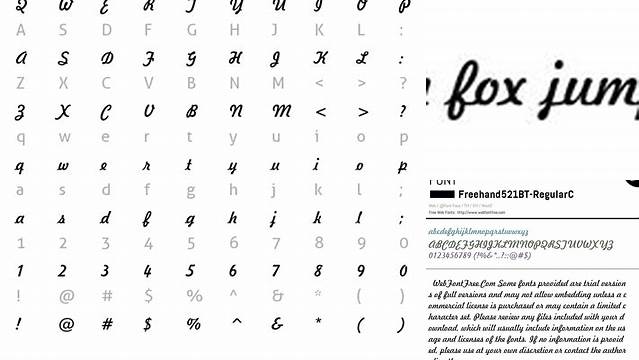
Font Freehand 521 BT Regular: Ultimate Guide
Font Freehand 521 BT Regular: A Comprehensive Guide
Hey there, design enthusiasts! Ever stumbled upon the Font Freehand 521 BT Regular and wondered what all the fuss is about? Well, you're in the right place! This guide is your one-stop shop for everything you need to know about this popular font, from its origins and characteristics to its practical applications and where to find it. We'll dive deep into its history, explore its unique features, and uncover how it can elevate your creative projects. So, buckle up, and let's get started!
The Genesis of Font Freehand 521 BT Regular
Let's rewind a bit, shall we? Font Freehand 521 BT Regular isn't just another font; it's a piece of design history. Born from the era when digital typography was taking its baby steps, this font emerged as a response to the need for fonts that could mimic the human touch. Imagine the days before the smooth, crisp lines of modern digital fonts. Designers craved something that felt more organic, more personal. And that's where Freehand 521 BT Regular stepped in.
This font is a member of the Bitstream family, a name synonymous with pioneering digital fonts. Bitstream, a company that played a pivotal role in shaping the digital font landscape, designed Freehand 521 BT Regular to bring a touch of hand-drawn flair to digital design. It was designed to replicate the look and feel of lettering created with a pen or marker, giving designs a friendly and approachable vibe. Its creation was a response to the growing demand for fonts that could add a personal touch to the increasingly digitized world. It's a font that tells a story of design evolution, reflecting the desire to blend the authenticity of hand-drawn work with the efficiency of digital tools. The goal was simple: create a font that felt less like a machine and more like a human had crafted it. This goal is still resonating with designers today who seek to inject personality and warmth into their work.
Its initial design was a deliberate move away from the rigid, perfect forms typical of many early digital fonts. Freehand 521 BT Regular aimed to capture the slight imperfections and variations inherent in hand-drawn lettering, making it a perfect choice for projects that needed a personal and informal touch. From its inception, the font was designed to be versatile, allowing it to be used in a variety of contexts, from headlines to body text, giving designers more options than ever. The font's developers intended to create a bridge between the old and the new, the analog and the digital, bringing the best aspects of both worlds to the design community. With its unique features and its ability to replicate the hand-drawn style, this font became an instant hit and is still considered a classic font in many designers' toolboxes.
Key Characteristics and Features
Alright, let's get down to the nitty-gritty. What exactly makes Font Freehand 521 BT Regular tick? First off, it's a sans-serif font, meaning it lacks the small strokes (serifs) at the ends of the letters. This gives it a clean and modern appearance. However, unlike many other sans-serif fonts, Freehand 521 BT Regular has a distinct personality. It has a slightly irregular and flowing quality that mimics the feel of handwriting. The strokes aren't perfectly uniform, adding a sense of naturalness and warmth.
One of the most significant characteristics of Freehand 521 BT Regular is its legibility. Despite its casual appearance, the font is easy to read, making it suitable for various uses. The letterforms are well-defined, and the spacing is optimized for comfortable reading. This makes the font suitable for both headlines and body text. Its versatility is one of its primary advantages. The font can adapt to different design needs without losing its unique personality. The design of Freehand 521 BT Regular makes it versatile for designers who want a handmade feel while keeping the readability of their text intact. Also, the font includes a broad range of characters, providing design professionals with plenty of choices. From uppercase and lowercase letters to numbers and punctuation, it ensures you can use this font in any project imaginable.
Moreover, the font's friendly and approachable appearance is a key feature. It's the go-to font if you are trying to create an inviting atmosphere in your design. The rounded edges and slightly uneven strokes give the font a welcoming feel that can be very useful in branding and marketing efforts. This feature makes it stand out from other fonts and allows you to design something unique and captivating. Additionally, the font's availability in regular and bold versions gives you the needed flexibility to create text that captures your audience's attention. The font's distinctive features and ease of use allow it to be used in a vast variety of contexts, from website headings to packaging. So, as you can see, the characteristics of this font make it a solid choice.
Where to Use Font Freehand 521 BT Regular
So, where does Font Freehand 521 BT Regular shine the brightest? Its versatility makes it a great fit for various projects. It's often used in branding and marketing materials, where a friendly and approachable font can help connect with the audience. Think logos, brochures, and website headers. The font's handwritten appearance can give a brand a unique and personal touch. It is a favorite for creating a brand image that is friendly and relatable. Its informal style is also perfect for social media graphics, adding a human element to your posts.
This font is also a great choice for creating eye-catching headlines and titles. Its unique appearance helps it stand out from other fonts. When used for headings, Freehand 521 BT Regular grabs attention, making it easier for readers to focus on your message. It can also be used in invitations, greeting cards, and other personalized items, giving them a unique, handcrafted feel. The font is ideal for design projects that demand a casual, friendly aesthetic. Moreover, the font is perfect for adding personality to projects that might otherwise feel too rigid. It is commonly used to create a casual and friendly vibe in projects such as invitations, greeting cards, and posters. Its informal style is also perfect for children's books, adding a sense of playfulness and fun. This versatile font can adapt to many design situations, allowing you to use it in a vast array of projects. It's all about finding the right context to make the most of its distinctive qualities.
For many designers, the goal is to inject a personal touch and avoid an overly generic look, making it a standout selection in their font library. You can leverage this font in your work and enjoy a handcrafted aesthetic that can make your designs more memorable. Its unique features and versatility will surely make your design project stand out. So, if you want your designs to appear both inviting and unique, Freehand 521 BT Regular is an excellent font to consider.